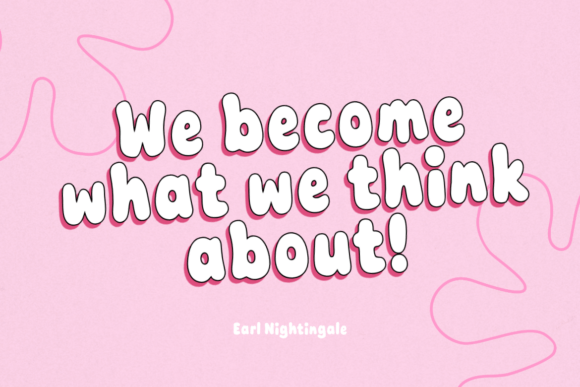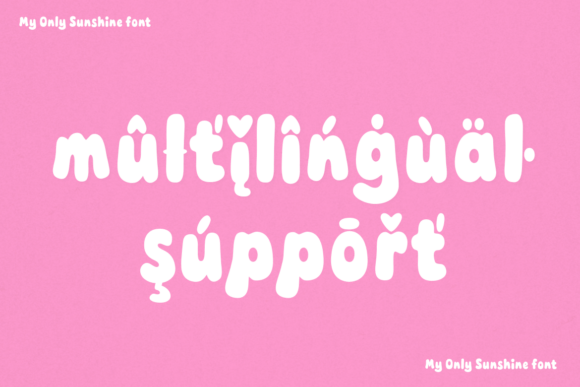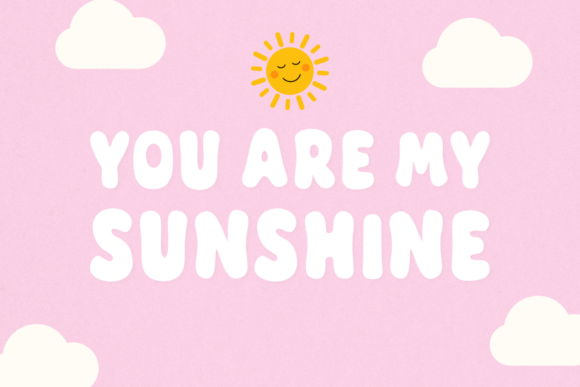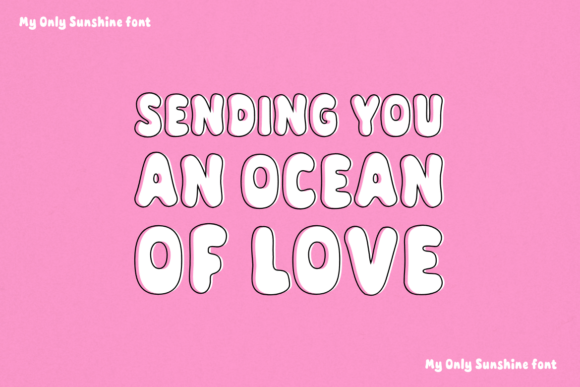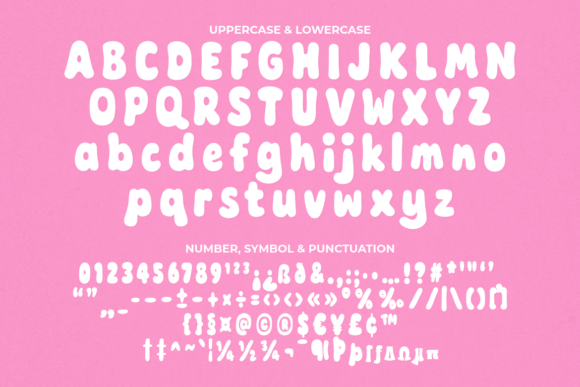
Introduction to My Only Sunshine Font
My Only Sunshine is a cute and cheerful display font designed to bring warmth and happiness to your designs.
With its soft, rounded shapes and playful character, this font creates a friendly and uplifting feel that instantly brightens any project Perfect for kids branding, summer-themed designs, posters, packaging, social media, and playful logos, this font adds a sweet and joyful touch wherever itโs used.
Key Features of My Only Sunshine Font